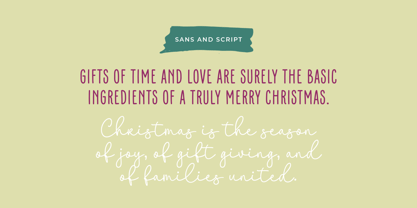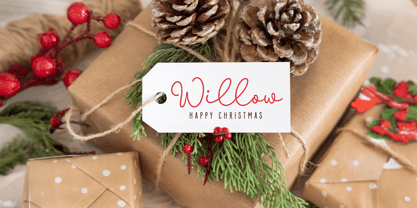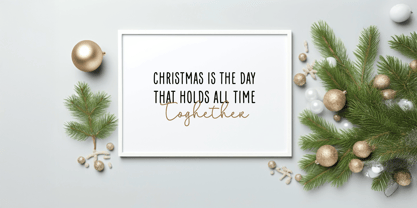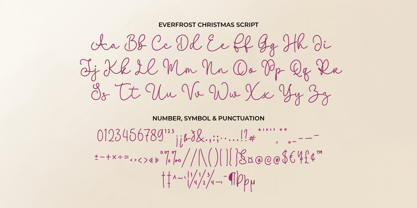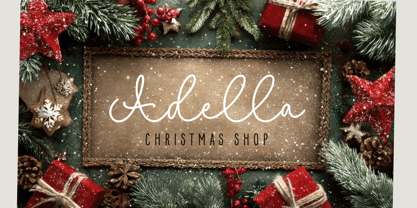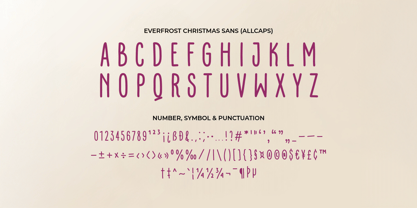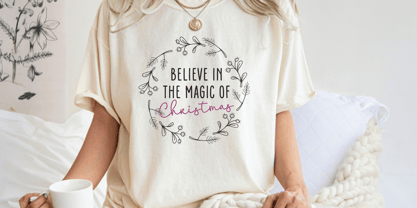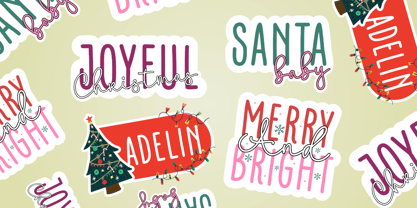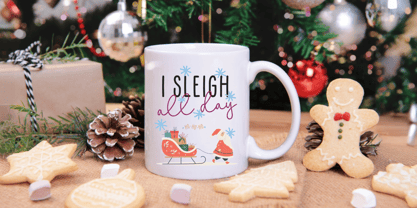
Everfrost
by Jinan Studio
The Everfrost Font Family was designed by Andi Syahdang, Ainun Jinan and published by Jinan Studio. Everfrost contains 2 styles and family package options.
Everfrost Christmas is a warm and cheerful handwritten Christmas font duo designed to bring a cozy holiday feeling to your designs. This set combines a clean, tall sans serif display font with a smooth and elegant script, creating a perfect balance between modern simplicity and festive charm. Perfect for Christmas branding, greeting cards, holiday quotes, invitations, packaging, social media posts, apparel, and seasonal decorations. Everfrost Christmas works beautifully for both playful and elegant projects, making your holiday designs feel friendly, stylish, and full of joy. Create magical Christmas designs effortlessly with this versatile and festive font duo. Features A set of uppercase and lowercase glyphs (allcaps sans version) Number, symbol, and punctuation Multilingual Support